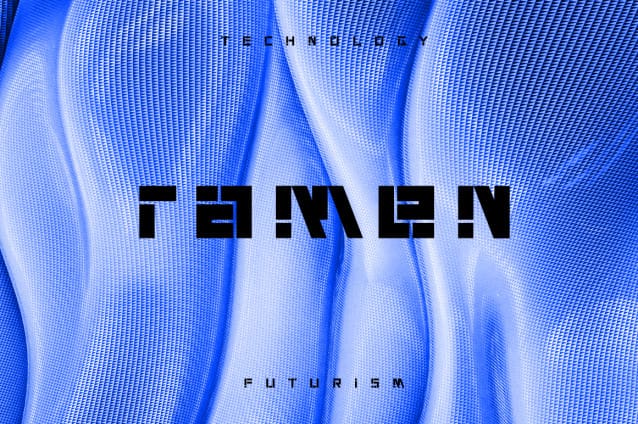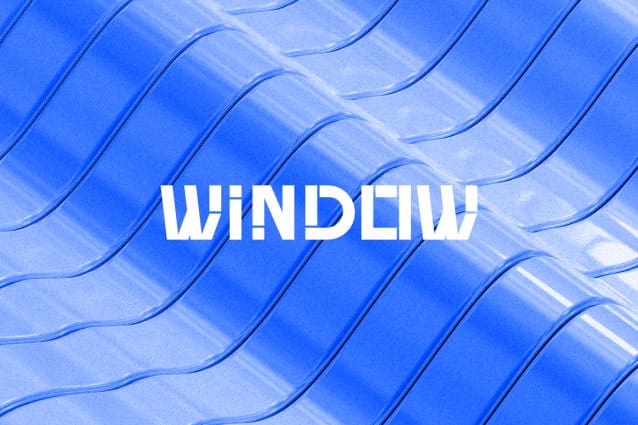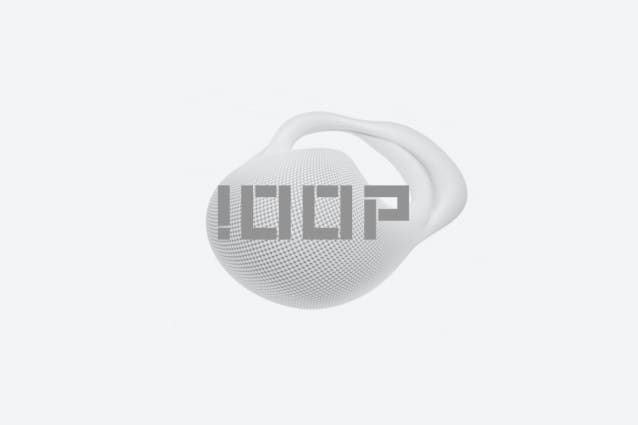
Overya Display Font
Overya Display Font, this font was created for all forms of business and branding such as clothing, logos, skate boards and others according to your needs.